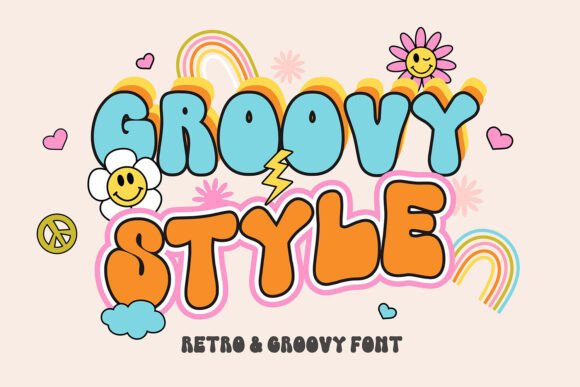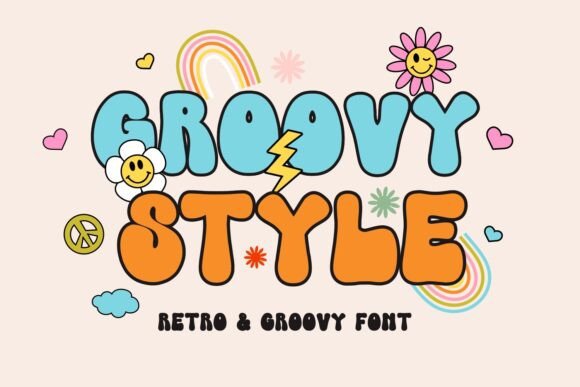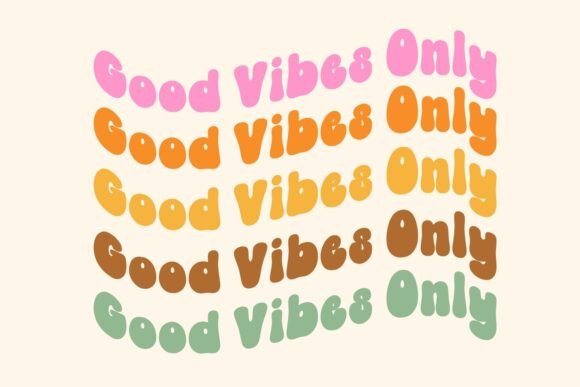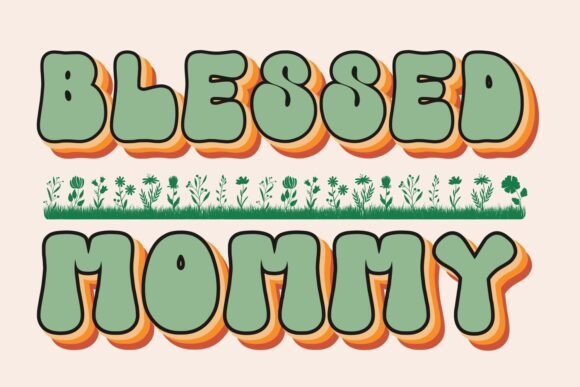
Groovy Style Font
About the Groovy Style Font
Step up your design game with Groovy Style Font, a font that exudes confidence and style. Introducing “Groovy Style” font – a blast from the past with a modern twist, designed to transport you to the era of retro, groovy, and vintage vibes. This fun and cute display font capture the essence of the ’60s and ’70s, infusing your designs with nostalgia and charm. Perfect for stickers, retro banners, and food-related projects like logos, packaging, posters, and banners, “Groovy Style” font brings a bold and playful energy to every creation.
Its bold, playful energy makes it ideal for headlines, short slogans, and branding projects needing a retro feel. It excels in applications like posters, packaging for vintage-inspired products, and social media graphics. However, its decorative nature makes it unsuitable for body text or UI elements requiring high readability.
Consider pairing “Groovy Style” with a clean sans-serif like Open Sans for a balanced contrast, or a more geometric sans-serif for a modern twist. A simple serif like Merriweather could add a touch of classic sophistication, while a script font would inject a further layer of retro charm, depending on the desired overall aesthetic.
The font’s inherent playfulness makes it perfect for brands targeting a younger audience or those with a lighthearted, nostalgic identity. Avoid using it for projects demanding seriousness or sophistication.
Groovy Style Font Usage Examples